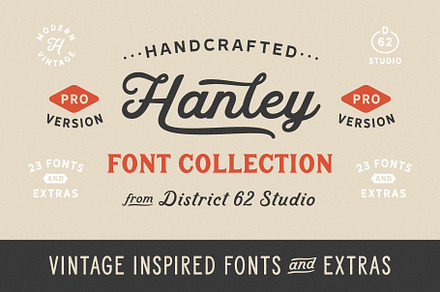
Hanley Pro Font Collection
A professional font collection covering multiple styles and weights, assembled as a complete typographic toolkit rather than a single family.
Collections of this kind solve the pairing problem outright, since every face was designed knowing what it would sit beside.
- Coordinated across the collection
- Extensive alternates and ligatures
Where it works
- Complete brand identity systems
- Packaging and editorial design
- Signage and environmental graphics
- Web and app typography